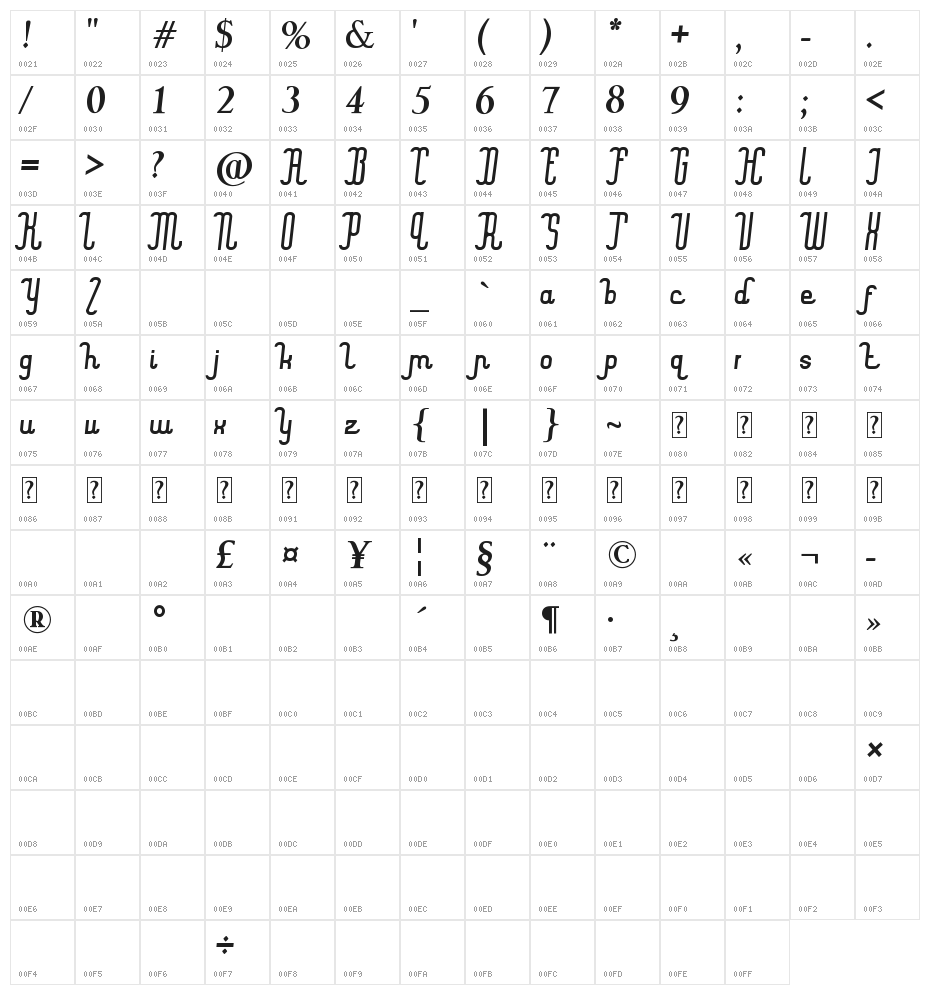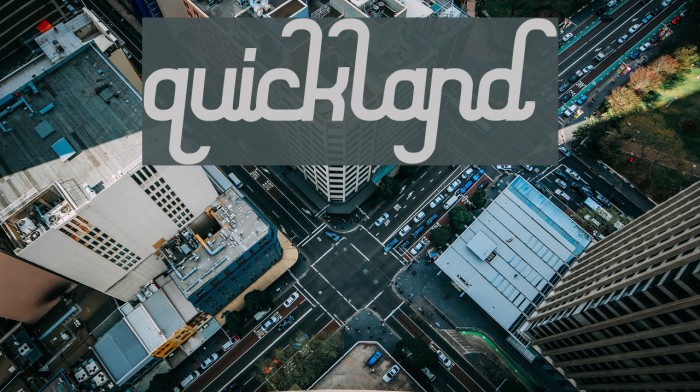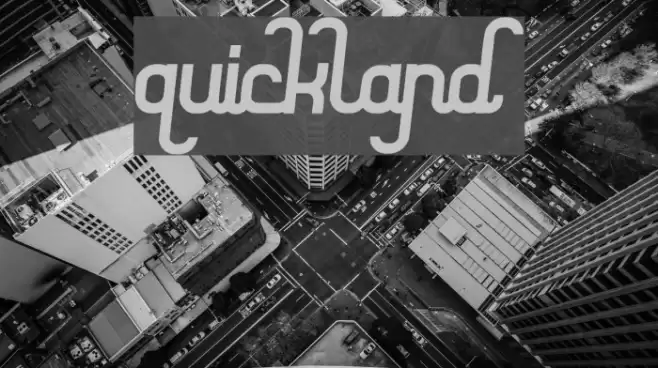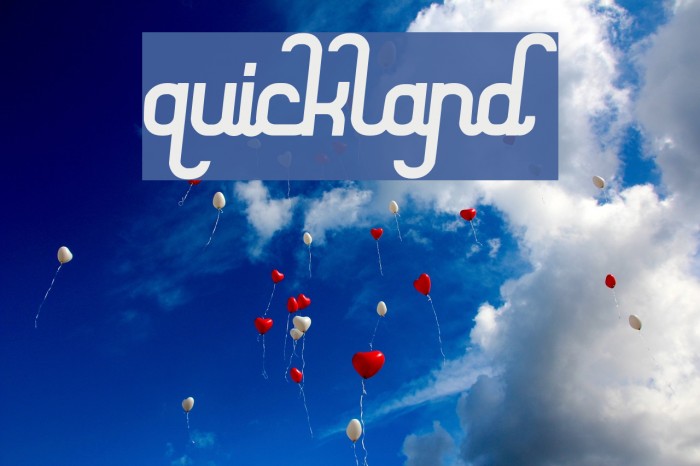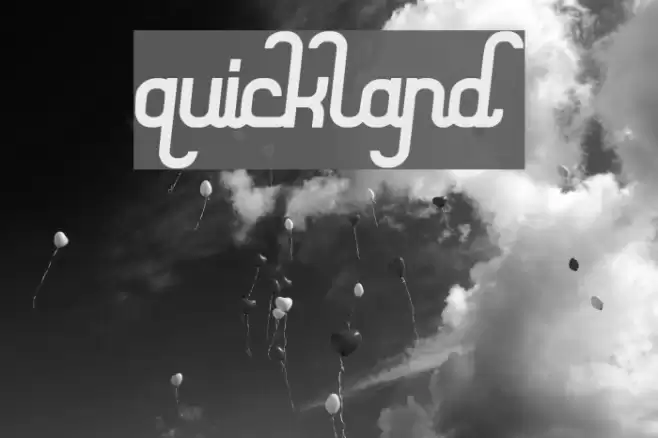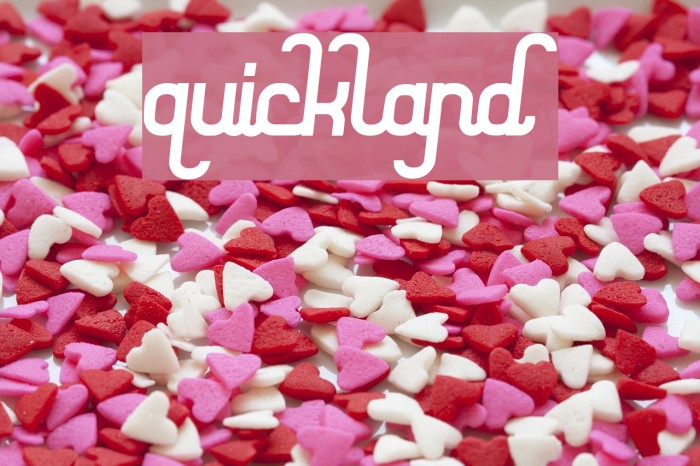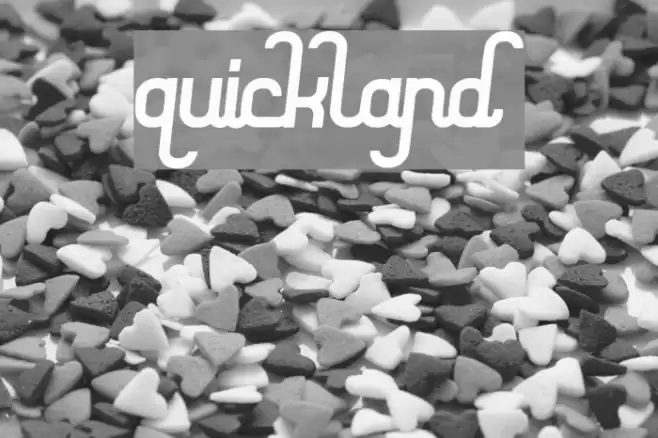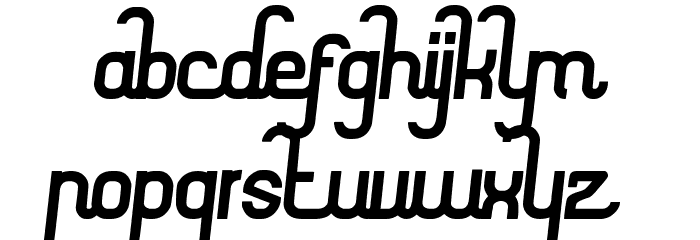
quickland Font
quickland Description
This font features a unique blend of modern and retro aesthetics, characterized by its elongated and slightly curved letterforms. The uppercase letters are tall and narrow, with a distinctive flow that gives them a sense of movement. The lowercase letters maintain a consistent style, with some characters having playful loops and swirls. The numerals are bold and clear, matching the overall style of the alphabet. Special characters are well-integrated, maintaining the font's cohesive look. This font's design is both eye-catching and versatile, making it suitable for various creative applications.
| Proposed Projects | Ideal for branding, posters, and creative design projects that require a distinctive and stylish typeface. |